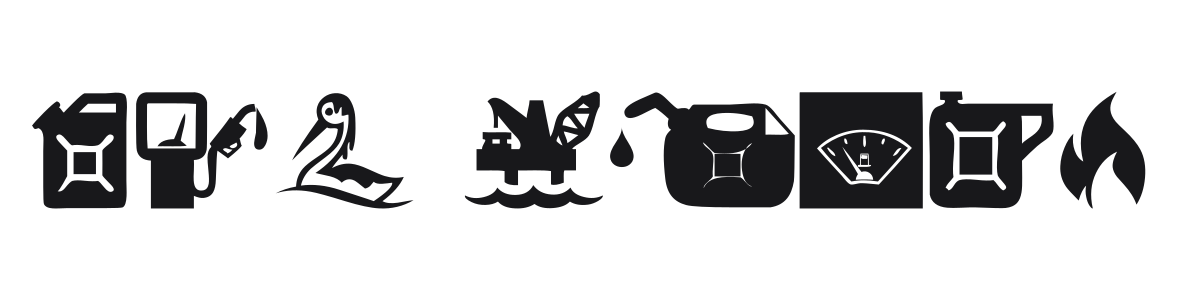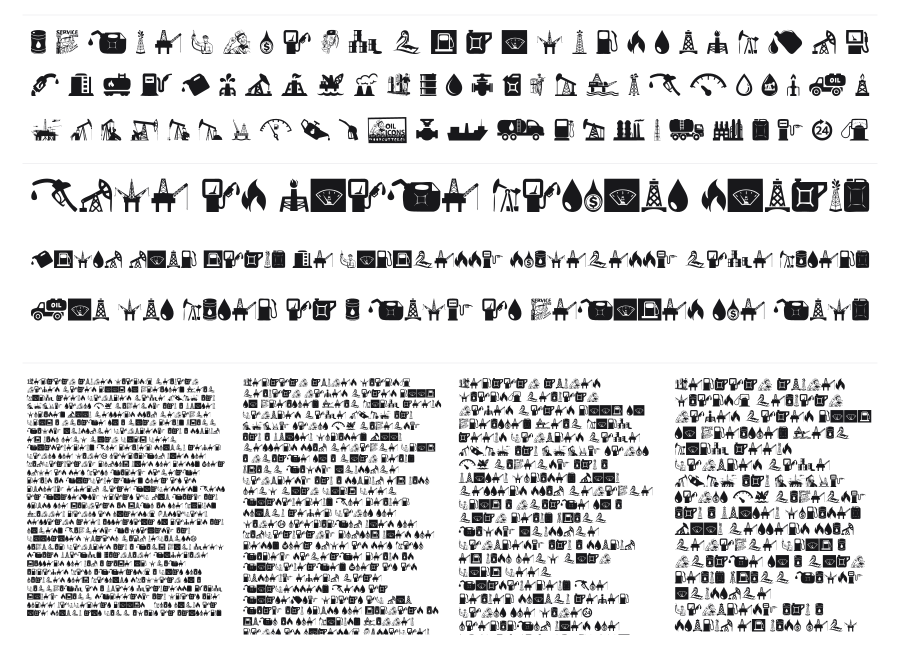
Oil Icons
Oil Icons is a retro-themed dingbat font by Woodcutter, packing a full set of petroleum and service-station symbols into each character slot. The icons draw on mid-century Americana illustration style, with bold silhouettes ranging from oil derricks and gas pumps to vintage attendants and fuel cans. A ready-made icon vocabulary for energy, automotive, and industrial design projects.